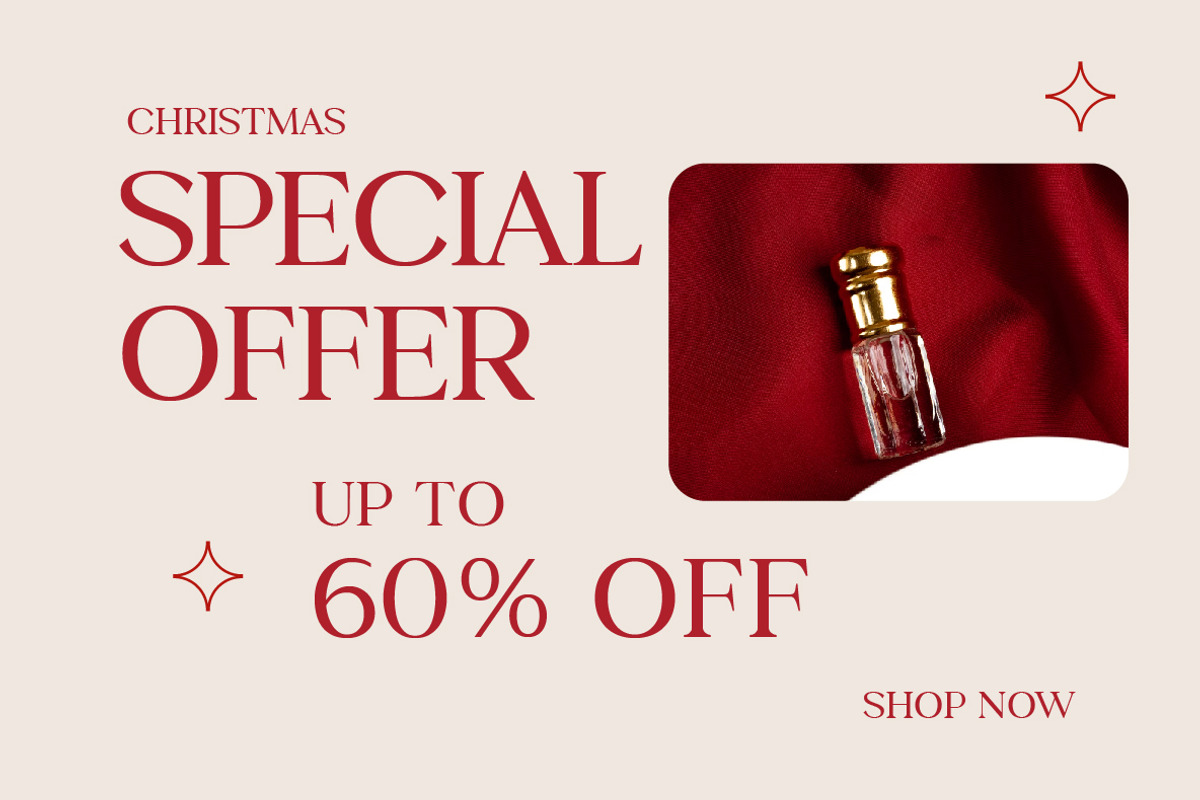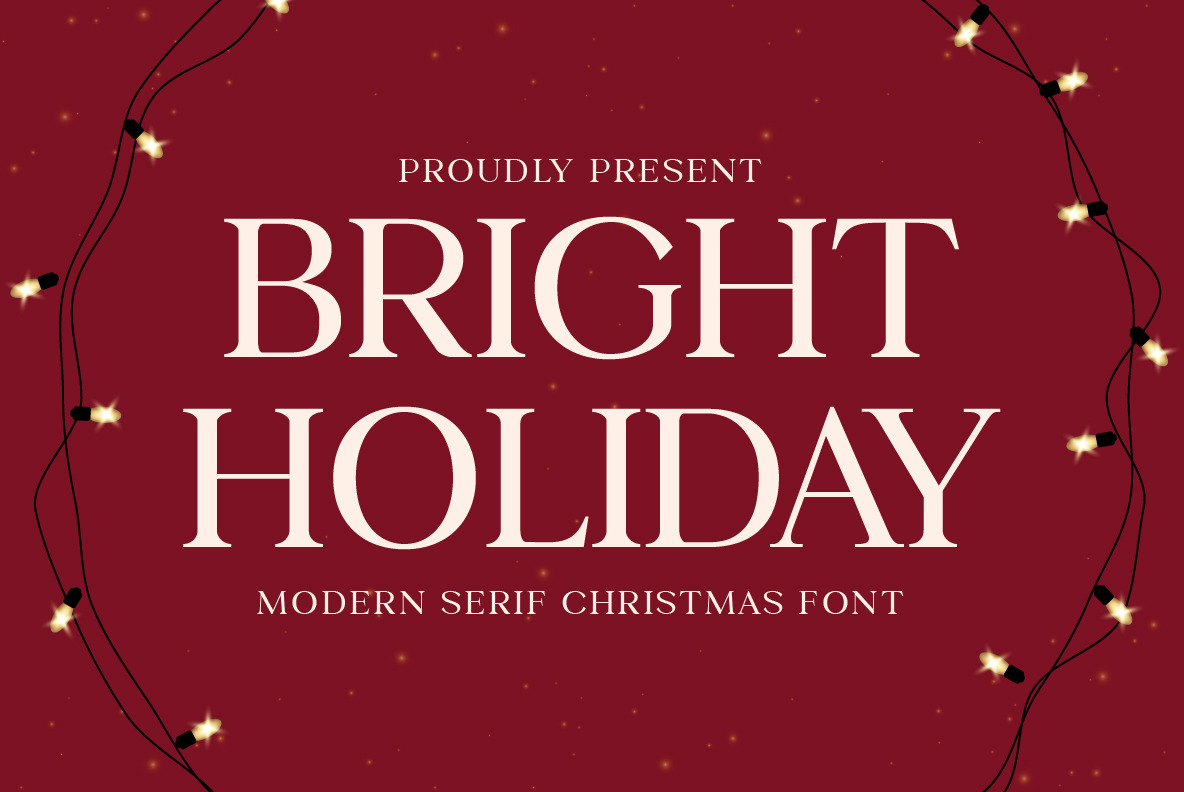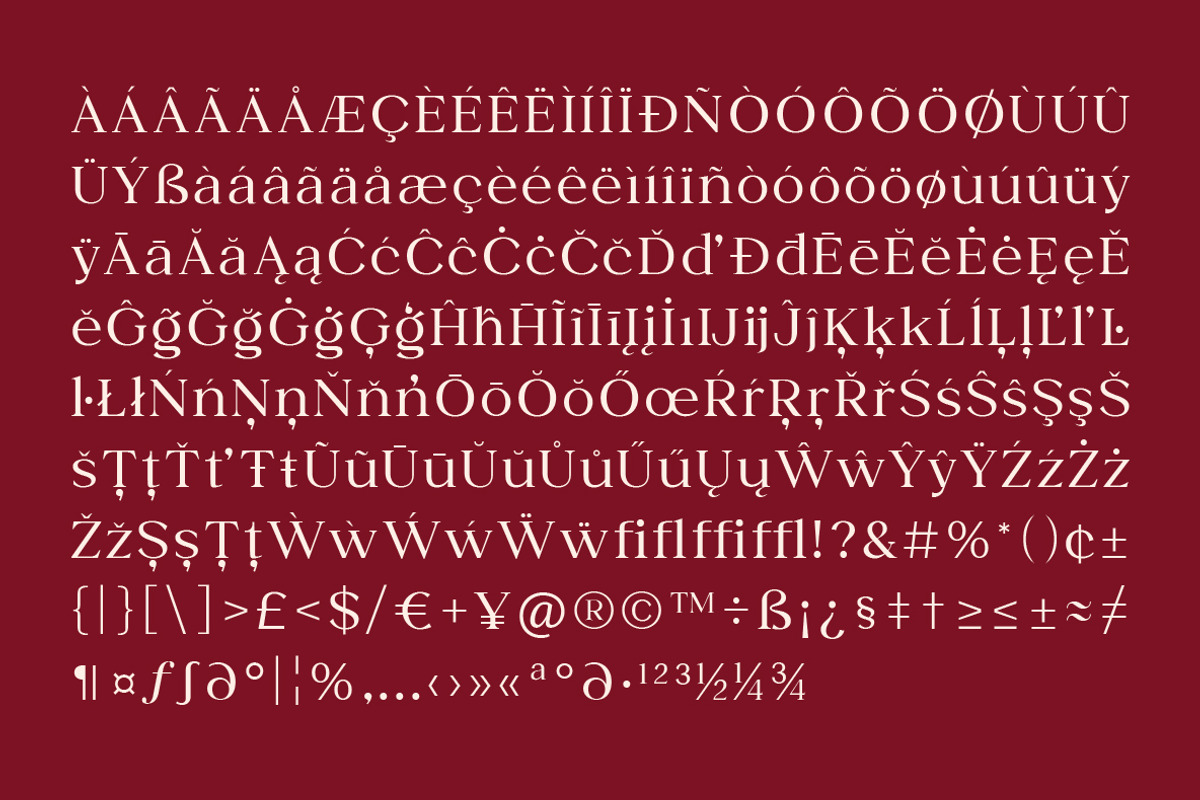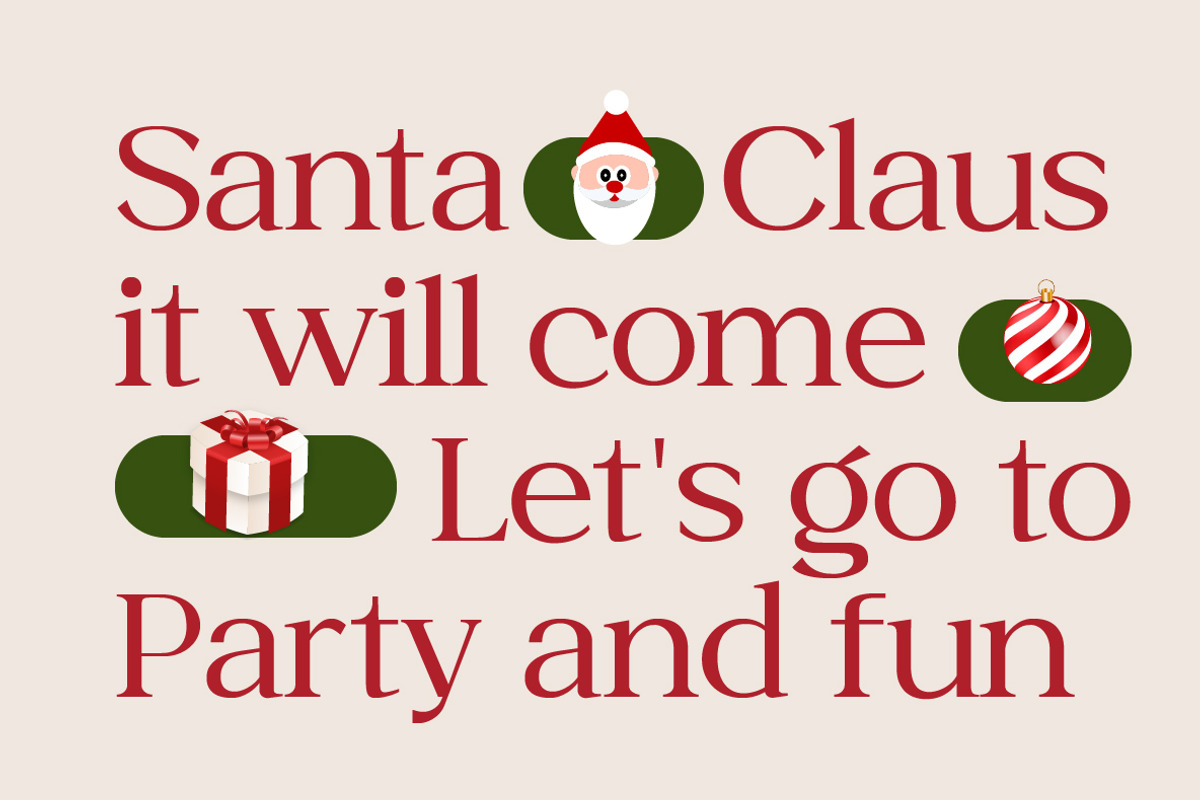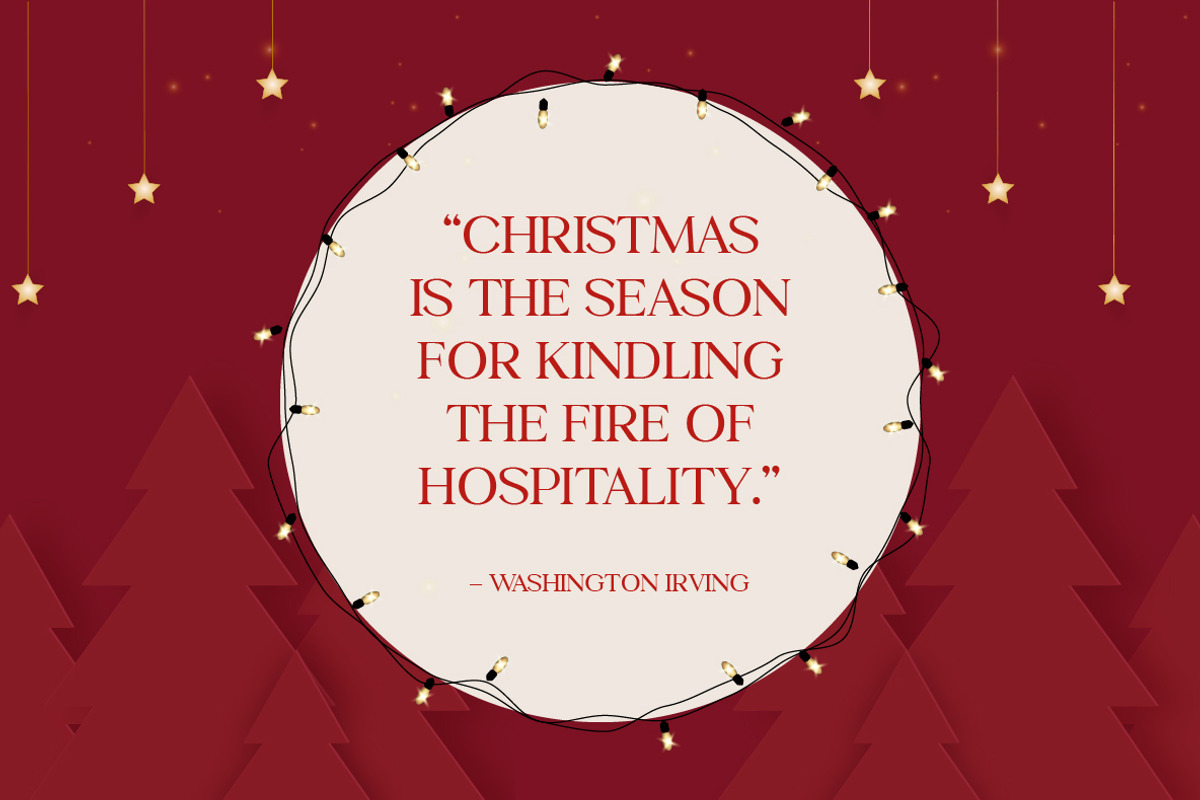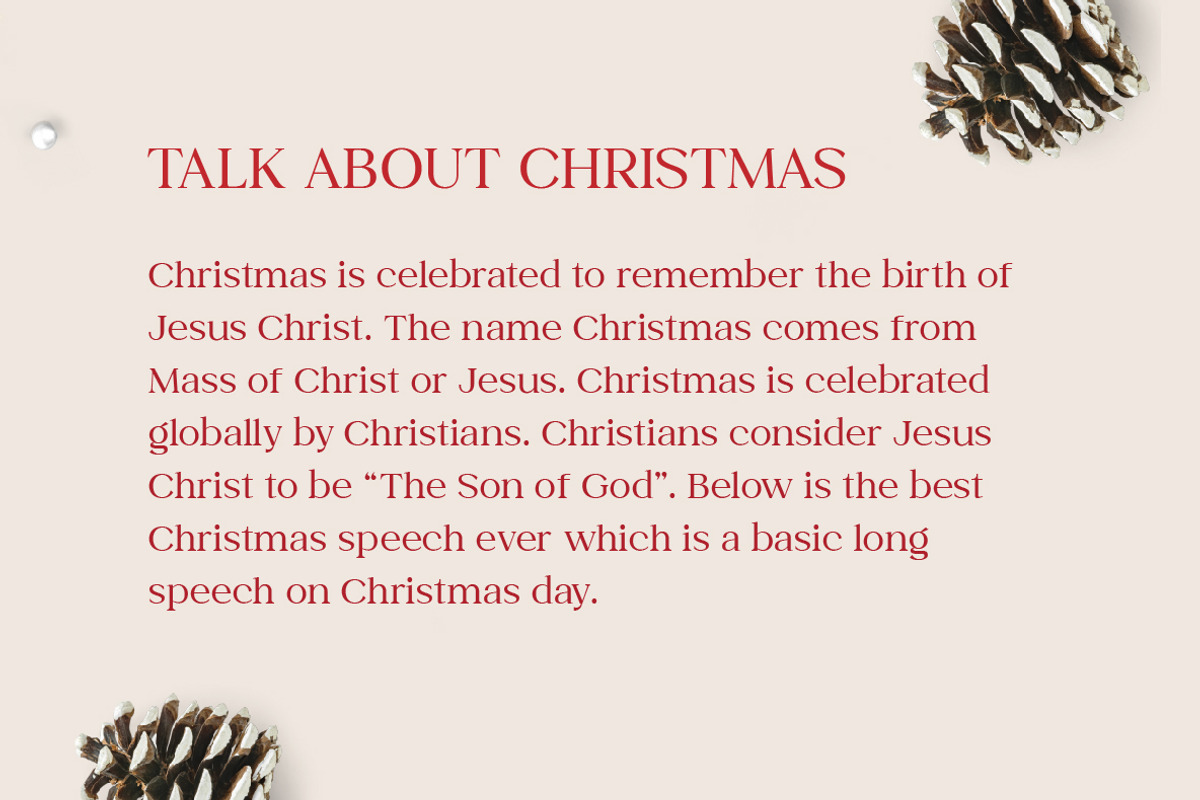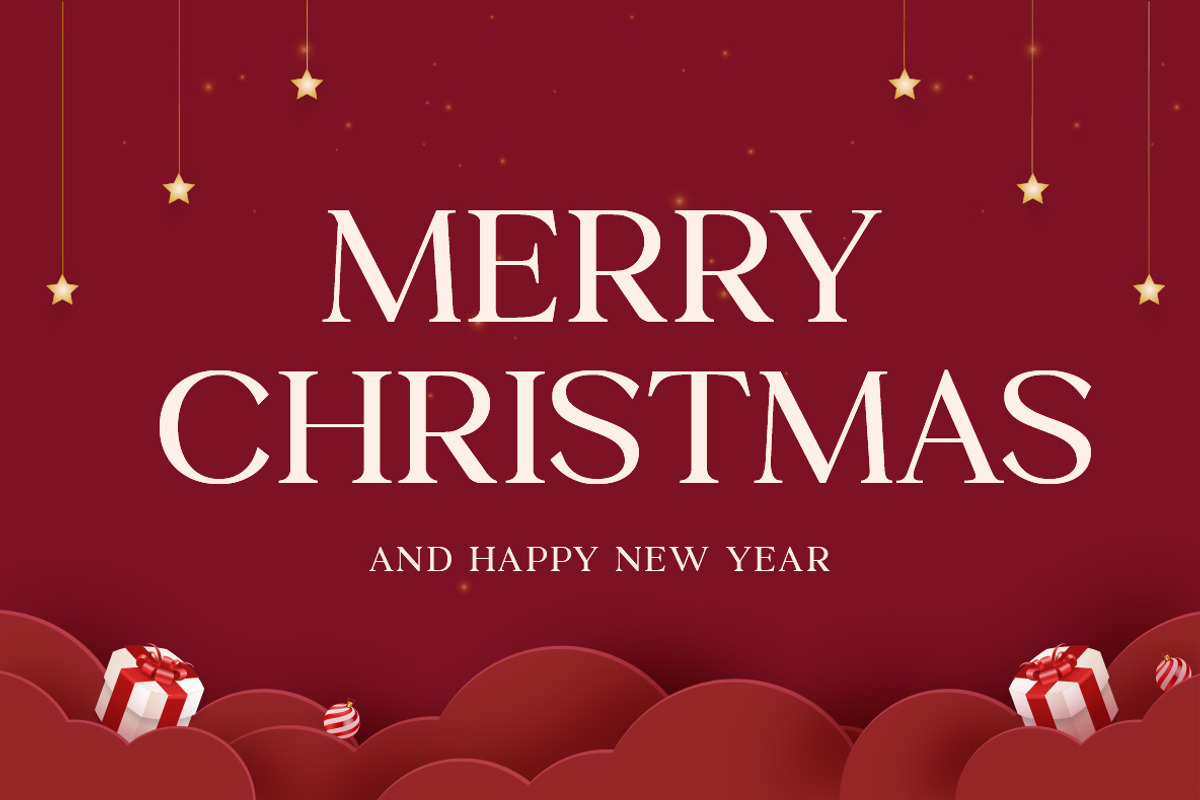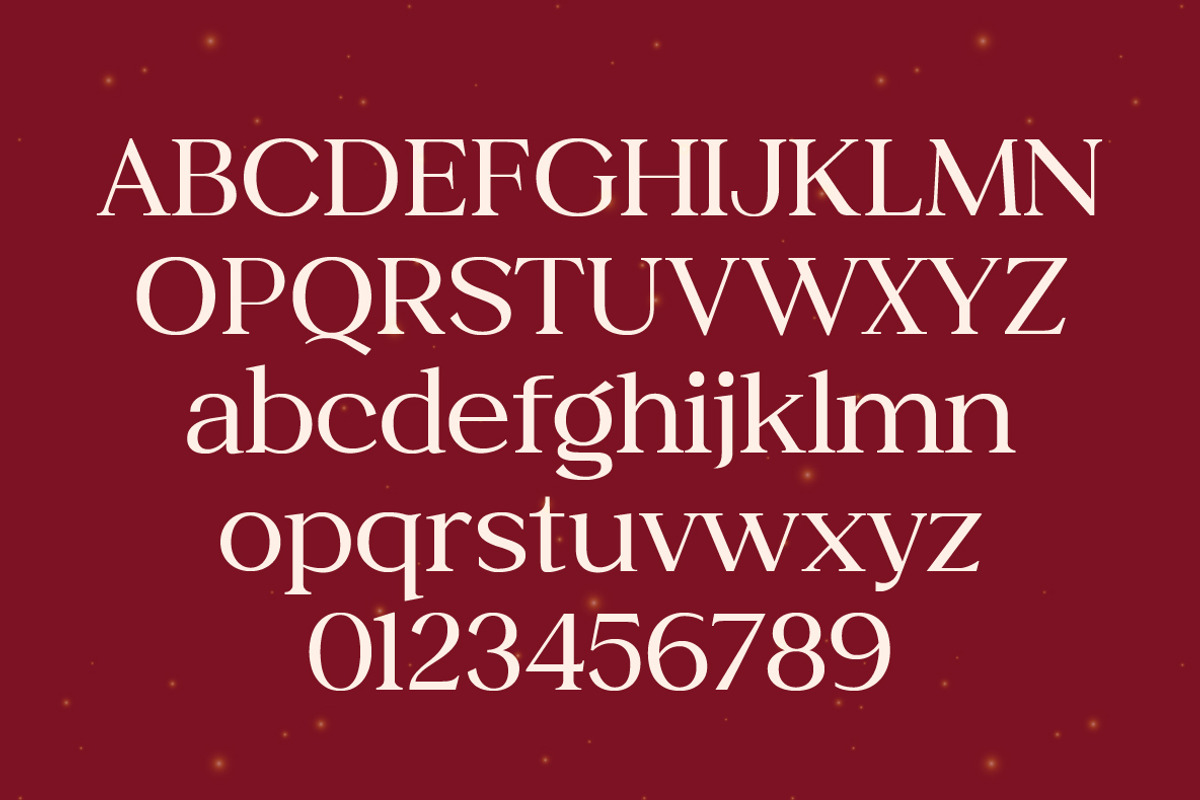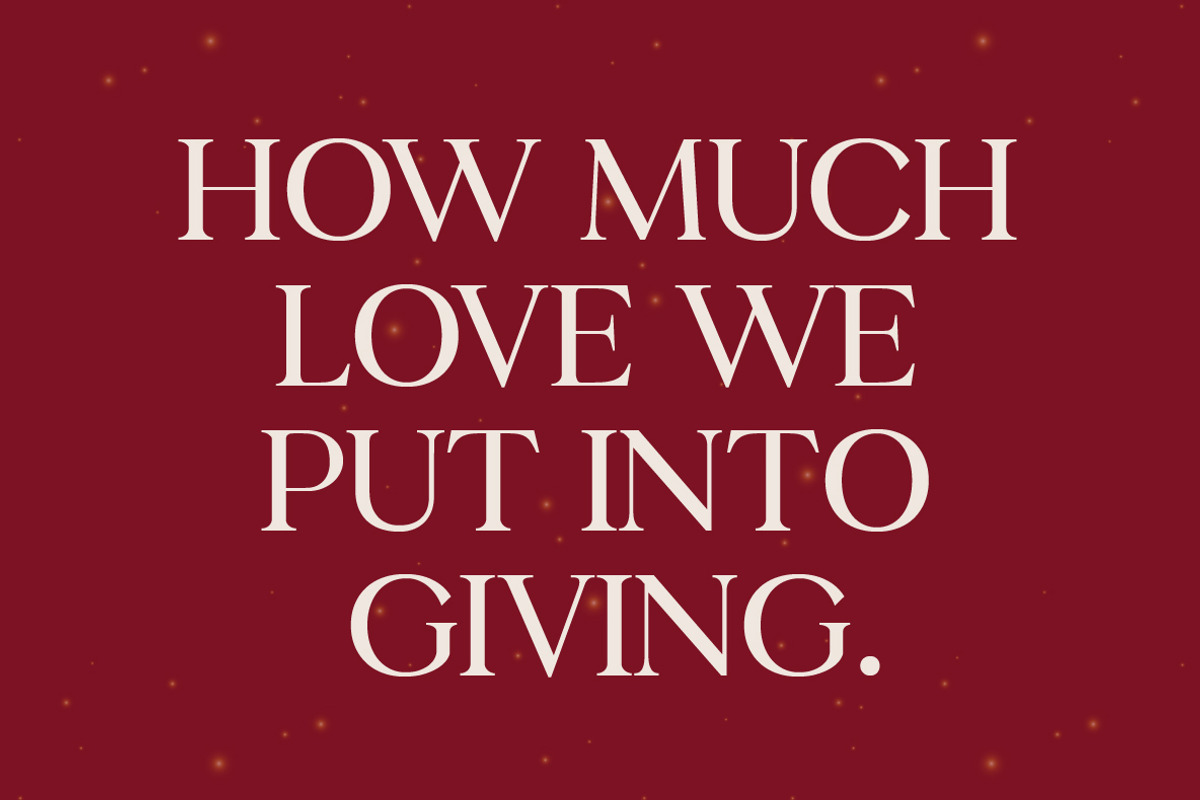
Bright Holiday Christmas Font
Bright Holiday elegant Christmas font is an elegant and artistic typeface that can be used to create attractive Christmas designs. This font has a beautiful shape and is great for use in various design projects, from invitations, and greeting cards, to posters or flyers.
Using this font will make your design look more fun and festive during the Christmas holidays. Apart from that, using this font can also provide a more attractive and elegant creative message, making it suitable for design needs that require an elegant touch at special moments.